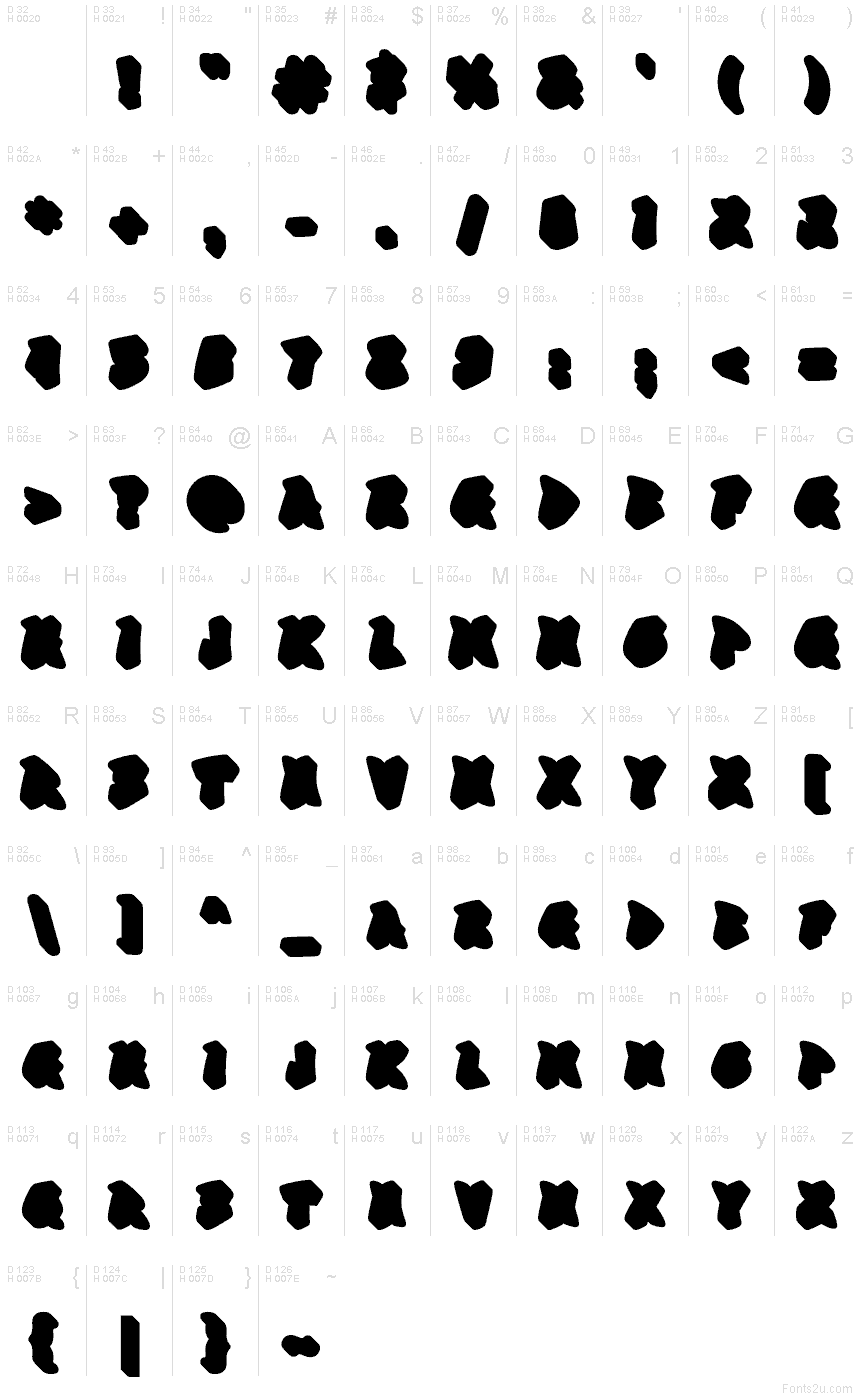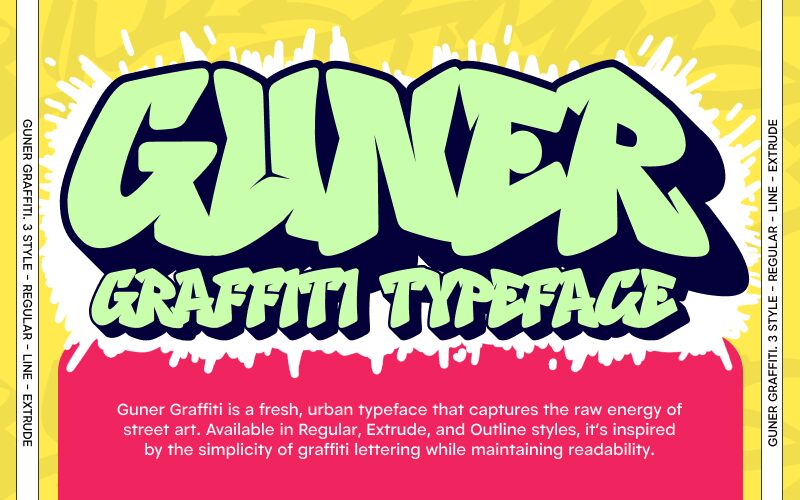
Guner Graffiti Extrude
Guner Graffiti Extrude font by Fitrah Type is a free graffiti font from the Guner Graffiti family, built to hit like fresh paint. Its defining move is the chunky bubble silhouette with an extruded feel that adds instant depth—no 3D tricks needed. The strokes read wet and weighty, with tight rhythm and rounded edges that stack into loud, high-impact words.
Using Guner Graffiti Extrude, you can punch up streetwear logos, album covers, festival posters, sticker packs, YouTube thumbnails, gaming titles, and bold packaging. This free font thrives oversized with bright fills or gradients; keep the copy clean around it. Pair with a plain grotesk or system sans to let the inky volume breathe.
Guner Graffiti by Fitrah Type.